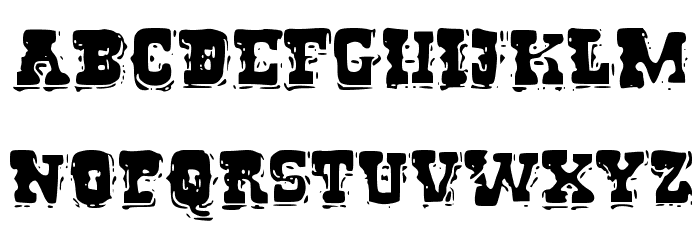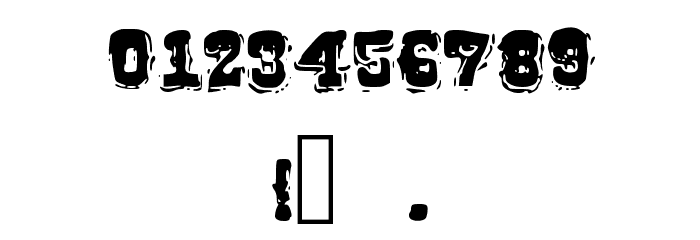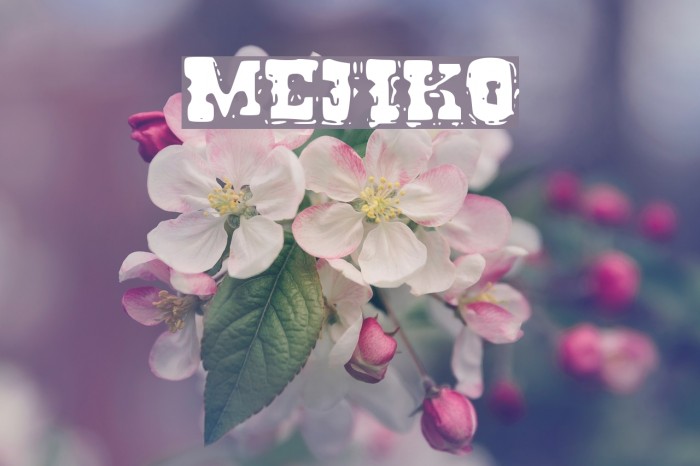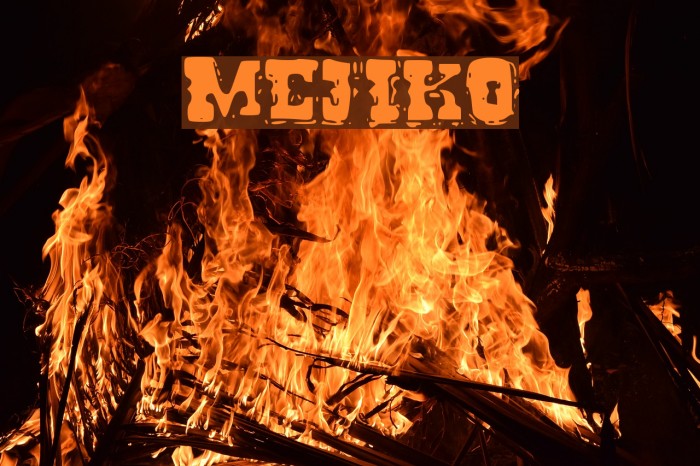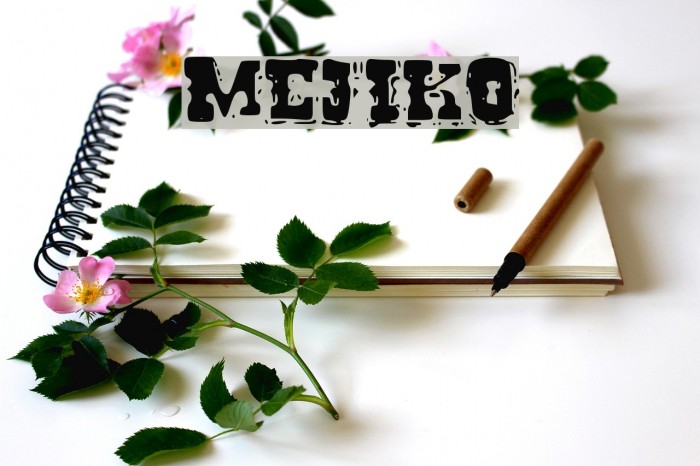
Mejiko Font
This font features a bold and rugged design with a distressed, grunge-like appearance. Each character is heavily stylized, with rough edges and a textured look that gives it a worn, vintage feel. The uppercase and lowercase letters maintain a consistent style, with thick strokes and irregular contours that add to the font's unique character. Numbers and special characters are equally bold and textured, ensuring a cohesive look across all glyphs. This font is ideal for projects that require a strong, eye-catching display with a touch of nostalgia or a rebellious edge.
A bold, distressed font with a rugged, vintage appearance.
- Proposed Projects: Ideal for posters, album covers, branding for edgy or vintage-themed products, and any design needing a bold, standout typeface.
- Overall Style: Vintage